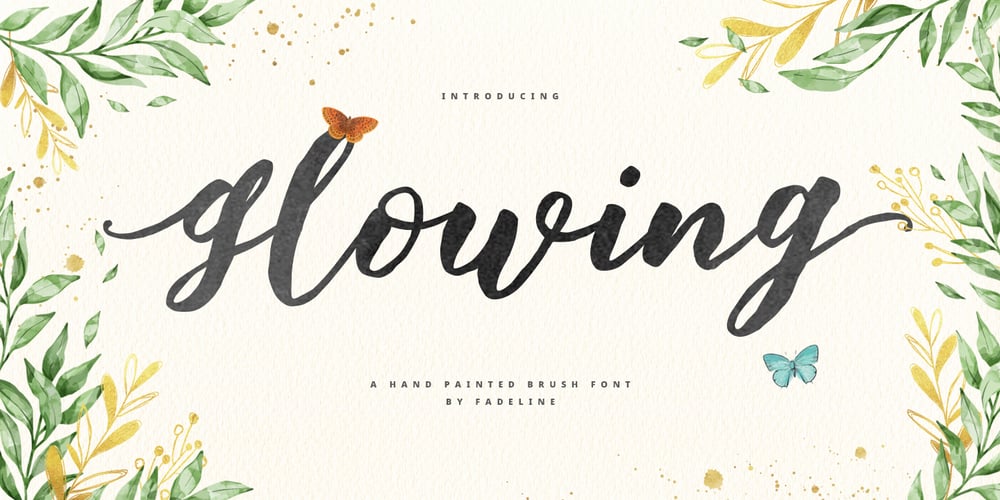
Glowing Brush
Glowing Brush font
Glowing Brush Font Family was designed by Juni Fadil Putra and published by FadeLine Studio. Glowing Brush contains 1 styles and family package options. Glowing Brush is a natural and beautiful brush-lettered font, a calligraphy style with decorative end characters and a dancing baseline! This font is perfect for use in ink or watercolor based designs that produce natural handwriting.With a style like this, this font will be suitable in use for logos, branding projects, homeware designs, product packaging, mugs, quotes, posters, shopping bags, t-shirts, book covers, name cards, invitations, greeting cards, and all your other lovely projects.